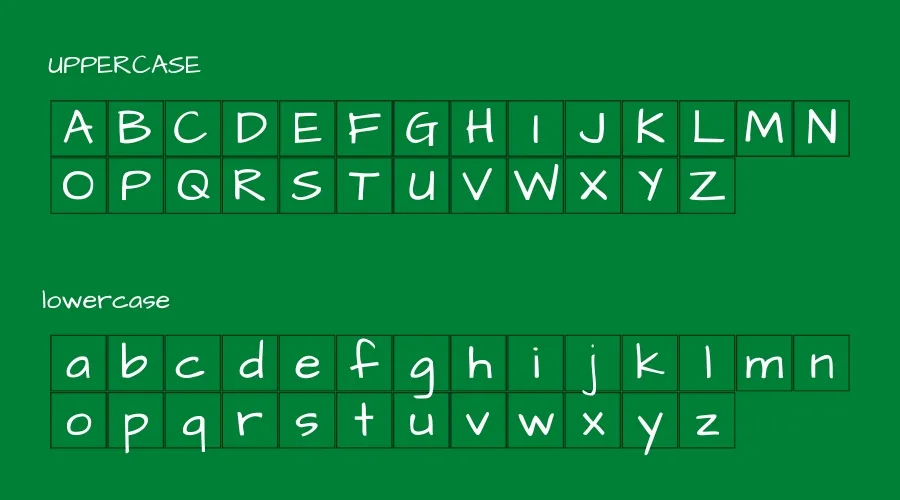
About Architect Font
Athena Williamson created Architect Font The font provides features for foreign diacritical marks and is offered for both normal and bold styles.
Willow Typeface is a fantastic option when you’re seeking a fresh font for any upcoming marketing venture or want to give your papers a little individuality. It is a member of the Display font family.
It goes well even with Intro Inline Font. A number of considerations to make while selecting this font. Take into account the general atmosphere of the content initially.
The typeface is a great choice if you’re searching for such a layout that will bring some humor or delight. Although, we should be using a unique typeface whether you’re trying for what is slightly more severe or official. This typeface may be created using an online font-generating tool.
Additionally, standard as well as bold weights of this font are offered. Whether you’re unsure, begin with both the standard weight instead and, when you determine you really require it, try the stronger variant.
variety of applications can be formed with this font, including logos, banners, and web designs. Several places, such as fashion magazines, books, newspapers, and company branding, would benefit from the use of this font.
The typeface is used by a wide range of designers who design clothes, cars, bag designs, T-shirts, and other products related to those fields.
Architect Font View
Name | Architect Font |
Designer | Athena Williamson |
Style | Decorative |
Who is the designer of Architect Font?
The creator of this font has worked truly well with this eye-catchy text style. Architect was generated and shared by Athena Williamson.